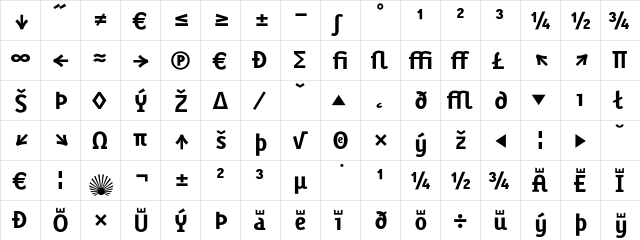
KarbidDisplay BoldExpert Font Preview
KarbidDisplay BoldExpert
Design Context for KarbidDisplay Typeface
KarbidDisplay is built around its visual character rather than neutral utility — its distinctive forms are designed to make an impression at display sizes. The heavy weight commands attention and anchors typographic hierarchies.
Font Pairing: Pair with a clean neutral sans-serif for body copy to let KarbidDisplay's character lead without overwhelming the composition.
Pro Tip: Treat KarbidDisplay as the centrepiece of your typographic hierarchy. One strong heading set in a decorative face can carry an entire layout.